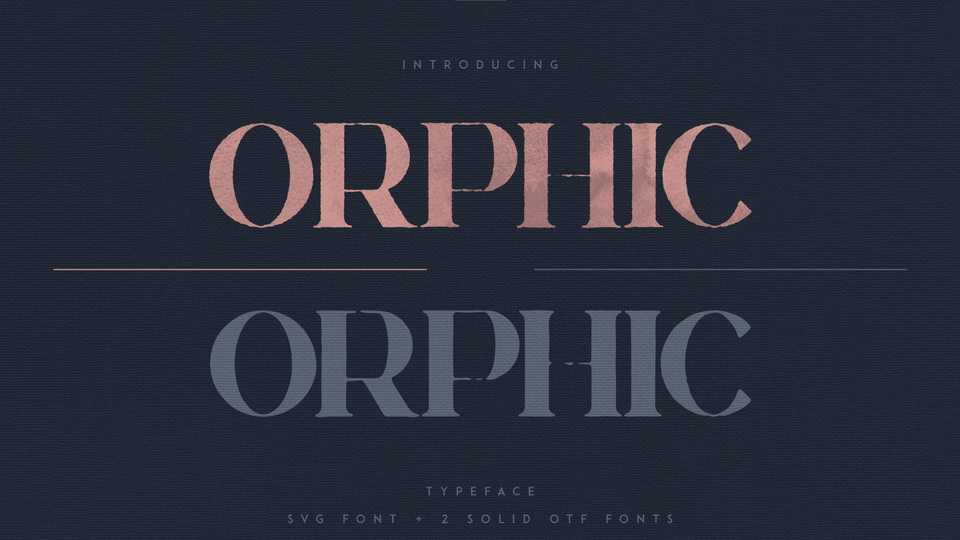
Download Orthic font, a modern high contrast serif typeface. Orthic font is perfect for branding projects, home-ware designs, product packaging, magazine headers – or simply as a stylish text overlay to any background image.